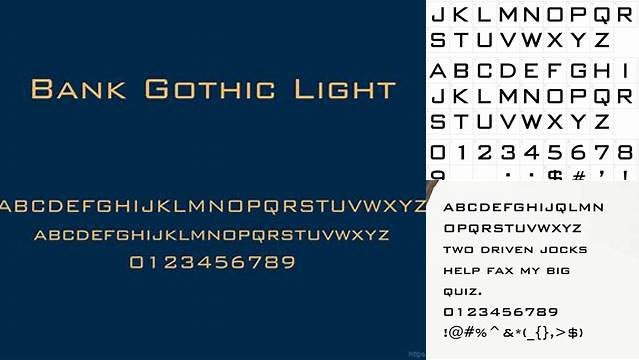
Hey guys! Ever stumbled upon a font that just screams sophistication and modernity? If you're nodding your head, chances are you've crossed paths with Bank Gothic Std Light. It's a true classic, a typeface that's been around the block and still manages to look fresh and stylish. In this comprehensive guide, we're diving deep into everything you need to know about Bank Gothic Std Light, from how to snag a free download to the best ways to use it in your projects. We will look at where to get the Bank Gothic Std Light font free, legally and safely, to avoid any issues with copyright or malware. We'll explore its distinctive features, discuss its ideal applications, and offer some tips and tricks to make the most of this amazing font. So, buckle up, because we're about to embark on a font adventure!
What is Bank Gothic Std Light? Unveiling the Elegance
First things first, what exactly is Bank Gothic Std Light? It's a sans-serif typeface, meaning it doesn't have those little decorative strokes (serifs) at the end of each letter. This gives it a clean, uncluttered look, perfect for conveying a sense of modernity and efficiency. Designed by Morris Fuller Benton in the early 20th century, Bank Gothic has a rich history, originally created for use in banking and financial materials. Its clean lines and straightforward design made it ideal for readability, even in small sizes or less-than-ideal printing conditions. Over time, the font's appeal extended far beyond the financial sector. Designers recognized its inherent versatility, and Bank Gothic began popping up in everything from advertising and branding to editorial design and web projects. The Light variant, as the name suggests, is a thinner, more delicate version of the original Bank Gothic. This adds a touch of elegance and sophistication, making it perfect for headlines, subheadings, and any situation where you want to create a sense of understated style. Imagine this: You're crafting a sleek website for a tech startup. You want a font that reflects innovation, precision, and a modern aesthetic. Bank Gothic Std Light is a perfect choice. Or, picture yourself designing a poster for a high-end fashion brand. The font's clean lines and subtle elegance will complement the brand's image, creating a cohesive and visually appealing design. So, the next time you see this font, you’ll know it’s all about clean lines, understated elegance, and a touch of modern sophistication. That's the magic of Bank Gothic Std Light!
Bank Gothic Std Light: Usage and Best Practices
Okay, you've got the font, now what? Let's explore how to use Bank Gothic Std Light effectively. Its versatility makes it suitable for a wide range of applications, but here are some tips to maximize its impact:
- Headlines and Subheadings: Bank Gothic Std Light shines as a headline font. Its clean lines and bold presence make it instantly eye-catching. Use it for titles, section headings, and other key text elements to grab attention and establish visual hierarchy.
- Branding and Logos: This font is a fantastic choice for branding materials. Its modern, professional aesthetic conveys a sense of trust and sophistication. Use it in your logo, business cards, and website design to create a cohesive brand identity.
- Web Design: Bank Gothic Std Light works well on websites, particularly for headings and display text. Ensure readability by using sufficient font size and contrast, especially on smaller screens. Pair it with a more readable body font like Open Sans or Lato for a balanced design. Keep it clean, keep it simple, and your web design will look amazing.
- Print Design: From posters and brochures to flyers and magazines, Bank Gothic Std Light can elevate your print designs. Its clear legibility ensures your message gets across effectively, even in print. Consider its use for captions, pull quotes, and other design elements.